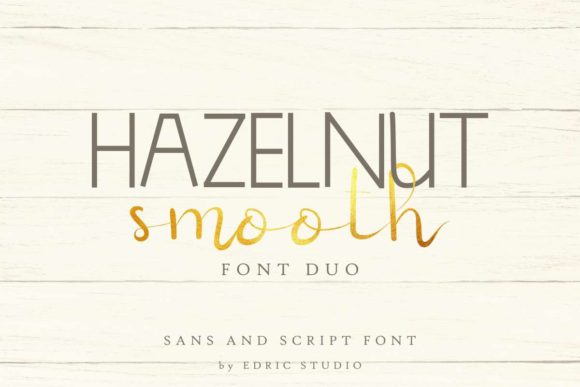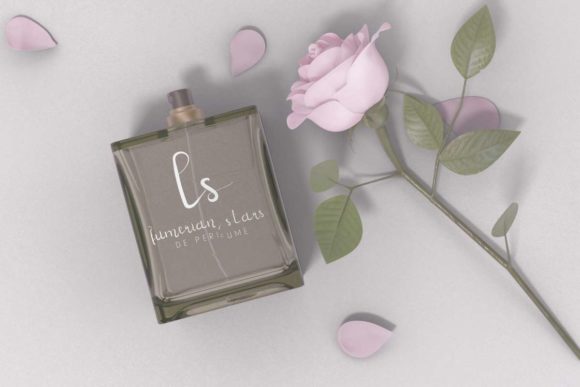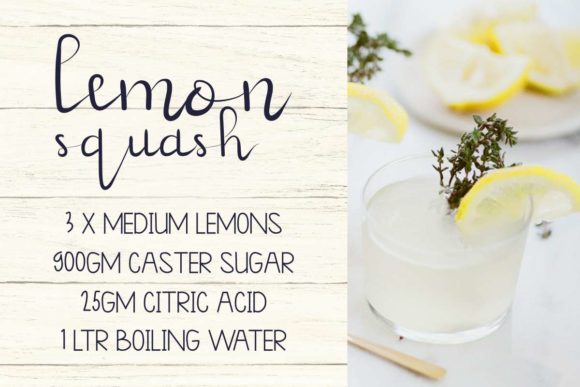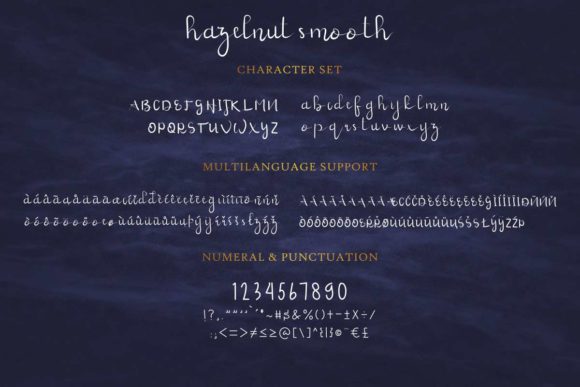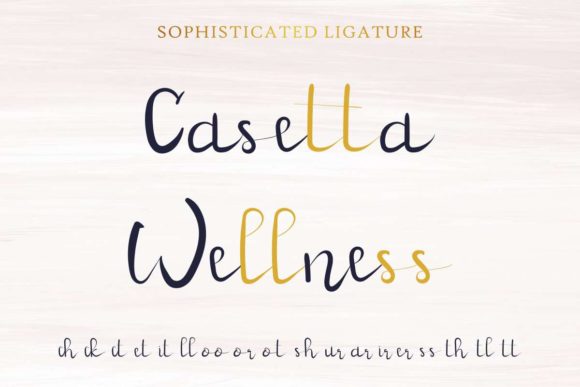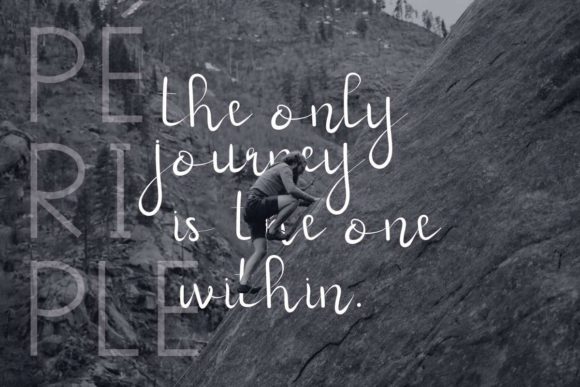
Introduction to Hazelnut Smooth Duo Font
You’ve finally nailed the concept for your creative project – the design is sleek, the colors are vibrant, and the message is clear. But there’s something missing. That’s when you stumble upon the perfect font combination: the simplicity of a sans serif paired with the elegance of a script. Welcome to the Hazelnut Smooth Duo Font, a match made in heaven for designers seeking a unique and high-quality design resource.
As a designer, you understand the importance of a well-chosen font in elevating your work from good to great. With the Hazelnut Smooth Duo Font, you can add a touch of sophistication to your branding, create stunning headlines, or even use it as a free download for a design project that requires a transparent background. This versatile font is a treasure trove of creative possibilities, waiting to be unlocked by your imagination.
In this article, we’ll delve into the world of the Hazelnut Smooth Duo Font, exploring its features, uses, and benefits for designers. Whether you’re a seasoned pro or just starting out, this high-quality font is sure to become a valuable addition to your design arsenal.
Key Features of Hazelnut Smooth Duo Font
- High-quality design resource for creative projects, suitable for various applications such as logos, branding, and graphics.
- Comes in two distinct styles: Hazelnut Smooth and Hazelnut Duo, offering versatility for different design needs.
- Features a transparent background, allowing for seamless integration with various design elements and backgrounds.
- Includes a range of font sizes and resolutions, making it suitable for various design applications, from small text to large headings.
- Unique and elegant design, making it an excellent choice for designers seeking a high-quality, distinctive font for their creative projects.
Honest Review: Hazelnut Smooth Duo Font
I recently had the chance to work with the Hazelnut Smooth Duo Font and I must say, it’s a great addition to any design project. ✨ The font has a unique, modern look that’s perfect for creative projects where you want to add a touch of sophistication. The free download option is a huge plus, making it accessible to designers of all levels.
One of the standout features of the Hazelnut Smooth Duo Font is its high quality. The font is crisp and clear, with a transparent background that makes it easy to work with. The font also includes a range of weights and styles, giving you plenty of options for customizing your design.
- Unique, modern design
- High quality and crisp
- Limited language support
- May not be suitable for very large text
Overall, I’m impressed with the Hazelnut Smooth Duo Font. It’s a great design resource that’s perfect for creative projects. While it may have some limitations, the font’s unique look and high quality make it well worth using.
How to Use Hazelnut Smooth Duo Font
Tips for Getting the Most Out of Hazelnut Smooth Duo Font
To get the most out of Hazelnut Smooth Duo Font, experiment with different font sizes, colors, and styles. Combine it with other design elements, such as images and graphics, to create a visually appealing design. Also, use it consistently throughout your design project to maintain a cohesive look.
Is the Hazelnut Smooth Duo Font suitable for use in digital signage or large-format printing?
Yes, the Hazelnut Smooth Duo Font is designed to be legible and clear at any size, making it suitable for use in digital signage, large-format printing, and other high-resolution applications. However, it’s always recommended to test the font in your specific application to ensure optimal results.